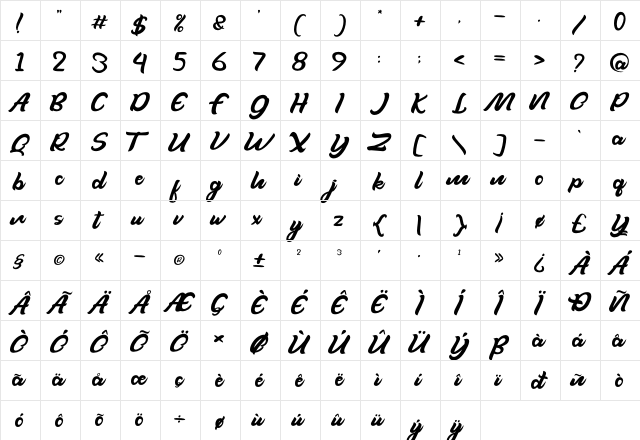
Moonthy Regular
Design Context for Moonthy Typeface
Moonthy is a composed and adaptable typeface that performs quietly and consistently across a wide range of design contexts.